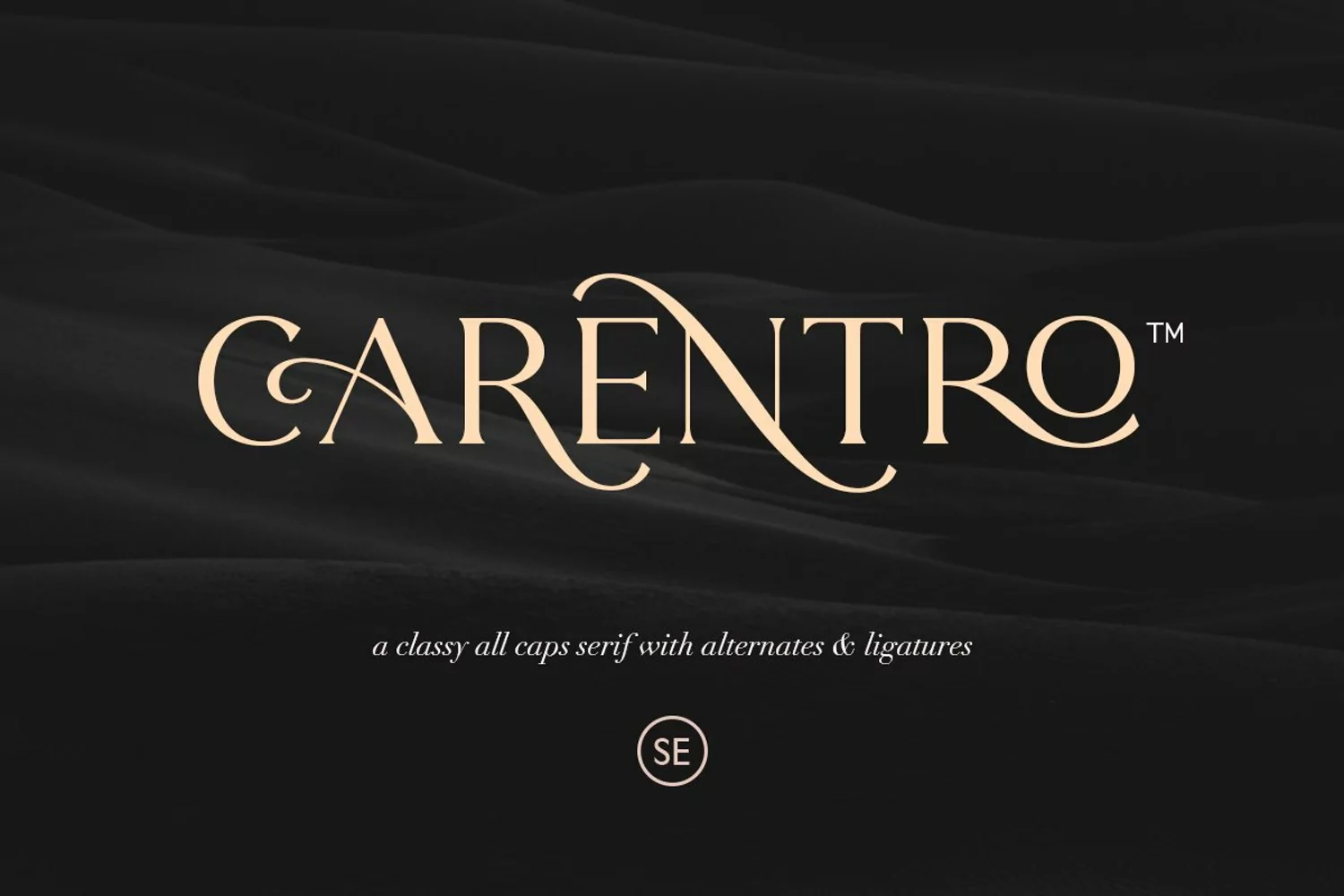
Carentro is a classy and modern serif with a bunch of alternates for each characters and ligatures that will make your presentation or logo even more stunning and stand out! You can use this font as a complement of your script collections or use this font as a stand alone font for several purposes such as a wedding invitations or even your own brand! This fonts support Multi Language and already PUA Encoded!